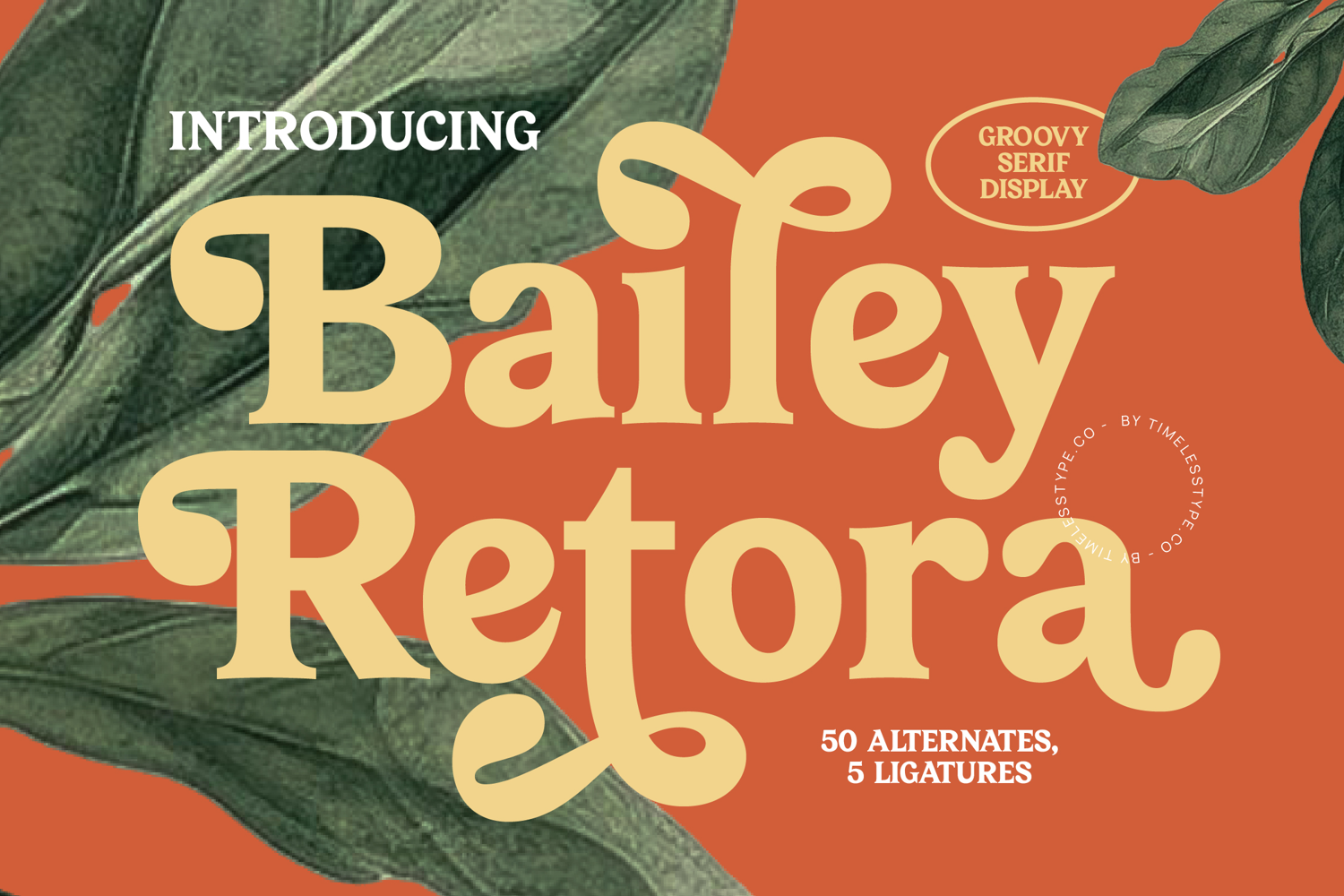
Bailey Retora - Groovy Serif Display
Bailey Retora
Bailey Retora Italic
Bailey Retora - Groovy Serif Display
Unleash a wave of nostalgic charm and contemporary flair with Font Bailey Retora - Groovy Serif Display. This remarkable display font effortlessly blends a rich retro aesthetic with modern typographic sophistication, designed to make an instant impact. Its distinctive, curvaceous serifs and bold presence command attention, making it the perfect choice for projects demanding both character and clarity. Elevate your design work with its unique visual storytelling capability.
Crafted with meticulous attention to detail, Font Bailey Retora - Groovy Serif Display exudes a luxurious, handcrafted feel. Its generous curves and pronounced serifs lend themselves beautifully to creating a strong, memorable identity. It is perfect for luxury branding, high-end editorial design, sophisticated packaging, memorable event invitations, and compelling creative campaigns that require a touch of refined vintage elegance. This font truly embodies a sophisticated yet approachable vintage aesthetic.
Expand your creative horizons globally with the exceptional reach of Font Bailey Retora - Groovy Serif Display. With its extensive multilingual support, Font Bailey Retora - Groovy Serif Display adapts seamlessly across global markets, making it incredibly versatile for international projects. Ensure your message resonates universally, maintaining its distinct personality and professional polish regardless of language. Its universal appeal ensures broad audience engagement.